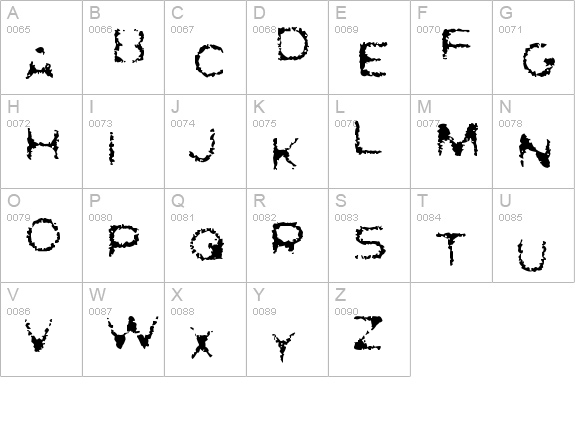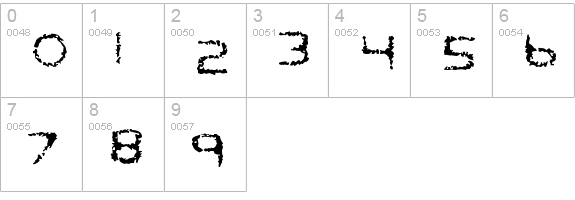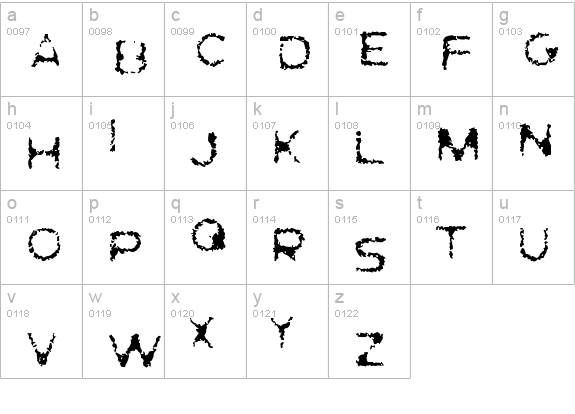
Ghostly Prints Font Details
Ghostly Prints is a free for personal use font in the Theme > Horror category, designed by Darrell Flood. It has been downloaded 84 times and is available for Windows, Mac and Linux.
Ghostly Prints font is an ethereal and haunting typeface that exudes an air of mystery and intrigue. Its ghostly appearance is perfect for adding a touch of supernatural charm to your designs. The intricate details and flowing lines of this font give it a unique and otherworldly quality that is sure to captivate your audience.